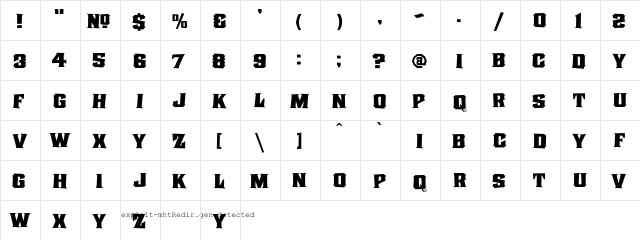
LHF Old Stock 1 Regular Regular
| Foundry | Chuck Davis for Letterhead Fonts |
| Designer | Chuck Davis for Letterhead Fonts |
Design Context for LHF Old Stock 1 Regular Typeface
LHF Old Stock 1 Regular is a composed and adaptable typeface that performs quietly and consistently across a wide range of design contexts.